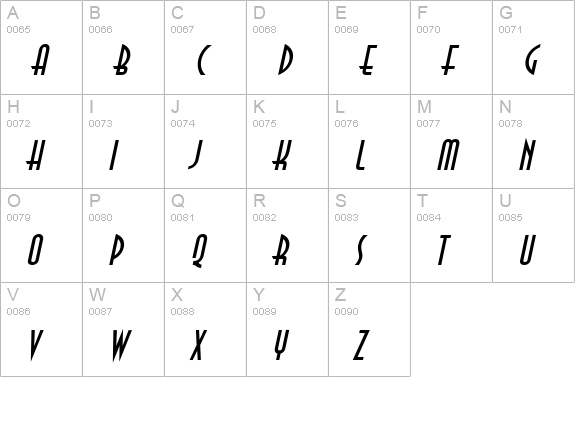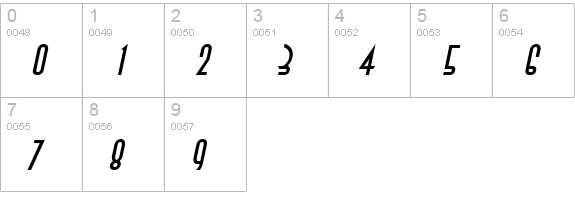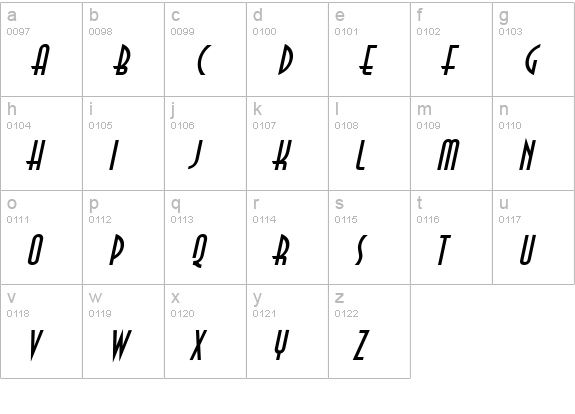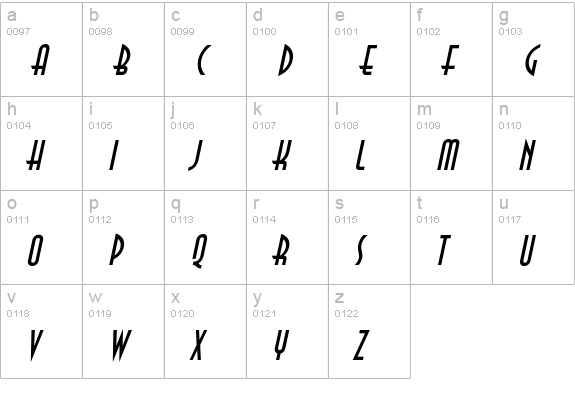
Anastasia Italic Font Details
Anastasia Italic is a distinctive, italic variant in the Anastasia typeface family \xE2\x80\x94 well suited to design and typography projects.
Anastasia Italic font exudes elegance and sophistication with its graceful and flowing style. The italicized letters add a touch of flair, making it perfect for projects that require a touch of sophistication. The delicate curves and unique letterforms of Anastasia Italic make it a standout choice for invitations, branding, and editorial design. Best of all, Anastasia Italic is available for free download at FontsMarket.com. Whether you're a designer looking to add a touch of elegance to your projects or a calligraphy enthusiast seeking a new favorite font, Anastasia Italic is sure to impress with its timeless beauty and versatility. Download it today and elevate your designs with this stunning typeface.